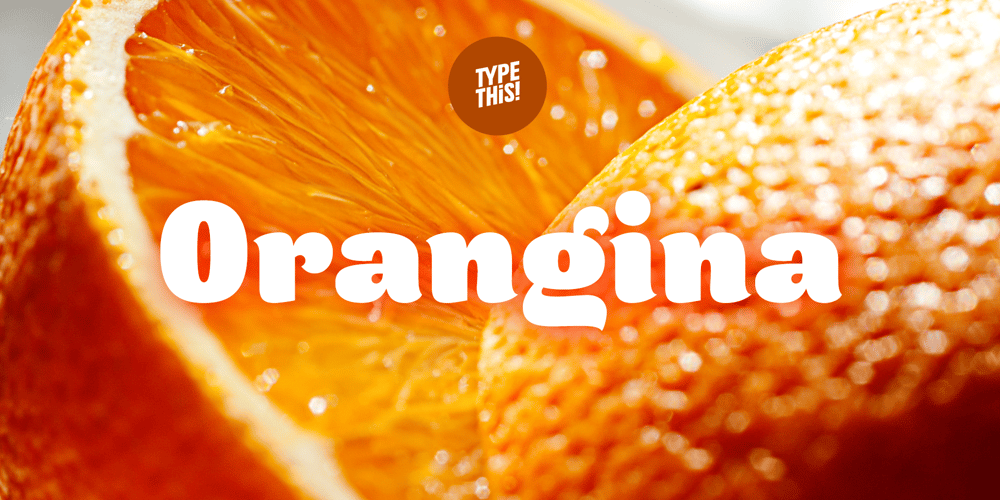
Orangina
Orangina Font Family was designed by Anita Jürgeleit and published by TypeThis!Studio. Orangina contains 1 styles and family package options. What can be better than releasing a hot summer font in winter time! Honestly – all the images are ice blue or white. Christmas stuff is everywhere and ‘Jingle Bells’ torment your ears! But here it comes to catch you: Bold and orange! www.typethis.studio